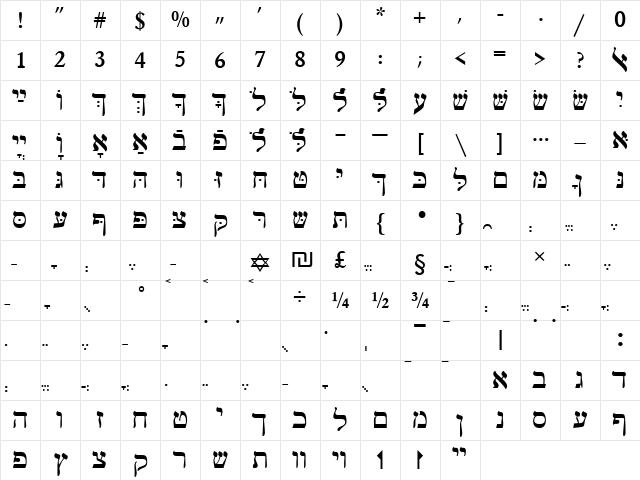
HebrewJoshuaSSK Regular
Design Context for HebrewJoshuaSSK
HebrewJoshuaSSK is a composed and adaptable typeface that performs quietly and consistently across a wide range of design contexts.